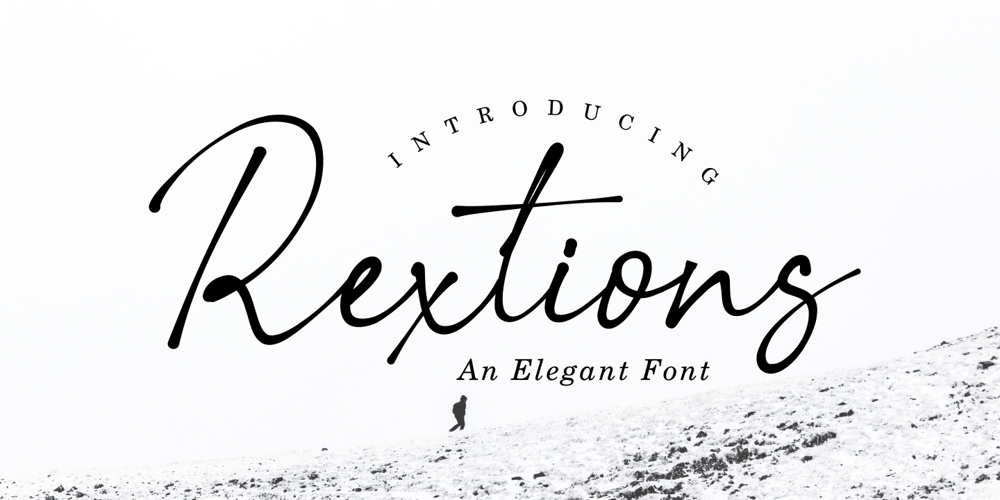
Rextions
Rextions font
Rextions Font Family was designed by Java Pep and published by Java Pep. Rextions contains 1 styles and family package options. Rextions is our new font, made in the style of basic hand writing. Every stroke and shape is created with natural handwriting, so that the elegant feel is more pronounced and prominent. Rextions is perfect for your next design project.Thanks for watching, If you have a technical support question, don’t hesitate to drop me a message. Have a nice day ๐Ÿ™‚